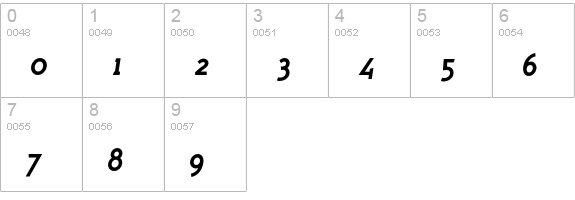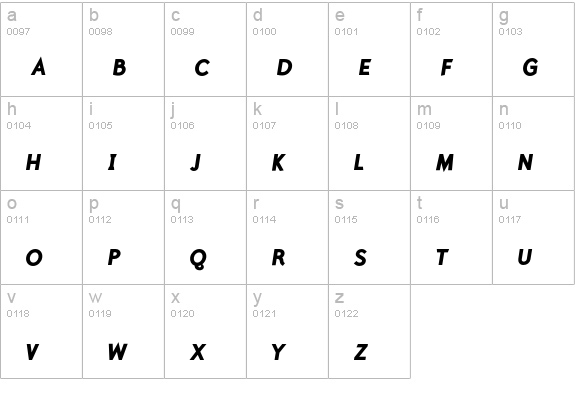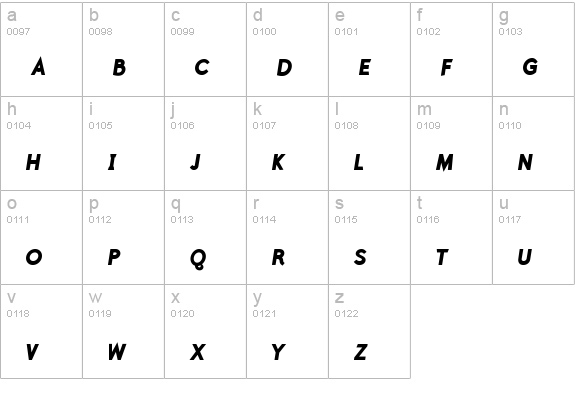
PolymerBoldCapsItalic Font Details
PolymerBoldCapsItalic is a modern and sleek font that combines boldness with elegance. Its unique design features bold, uppercase letters with a stylish italic twist, making it perfect for creating eye-catching headlines and titles. The font exudes a sense of sophistication and professionalism, making it ideal for a wide range of design projects. And the best part? PolymerBoldCapsItalic is completely free to download at FontsMarket.com! Whether you're working on a branding project, creating promotional materials, or designing a website, this versatile font is sure to make a statement. Don't miss out on the opportunity to add PolymerBoldCapsItalic to your font collection today and take your designs to the next level.